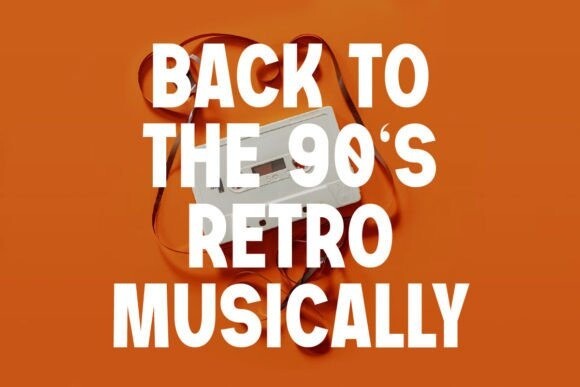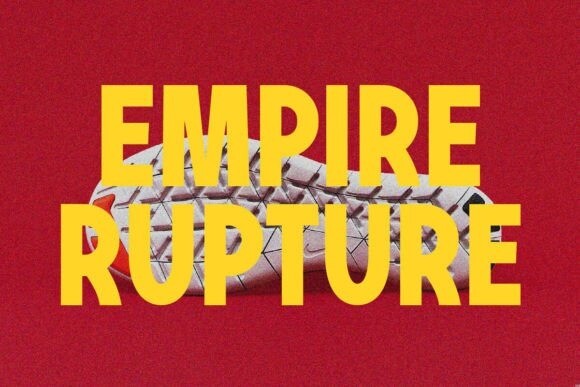
Comica Font
Comica Font is a retro sans serif font with a bold and striking appearance. It will be perfectly used for magazines, packaging, posters, quotes, label tag, t-shirts, book covers, photography, special events, and titles. ensuring your text stands out with confidence. The font features slightly rounded edges, adding a subtle softness to its otherwise strong and assertive design.